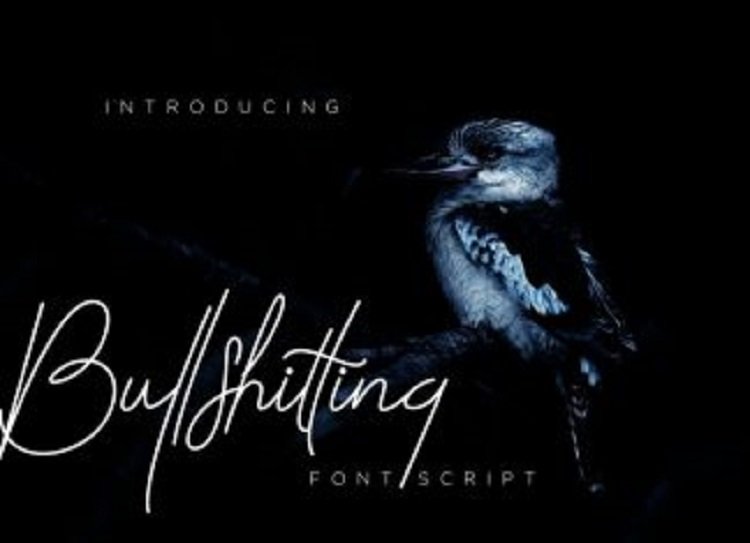
Belliatthing Signature Font
Belliatthing Font is a handwritten signature typeface coming with more than 150 stylistic ligatures.
Its classy energetic look makes it the perfect fit for feminine logos, printed quotes, invitation cards, social media headers, product packaging and a lot more!